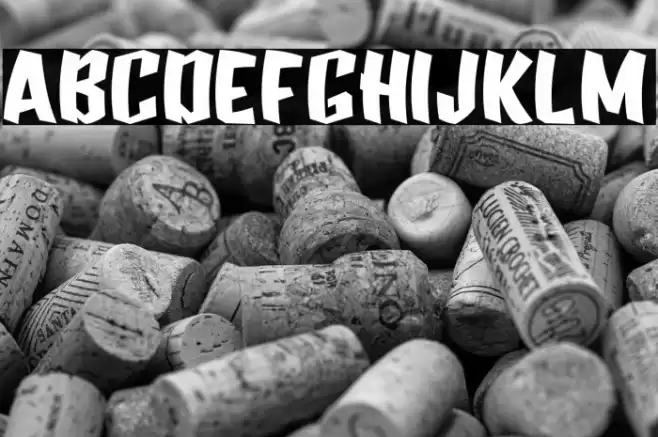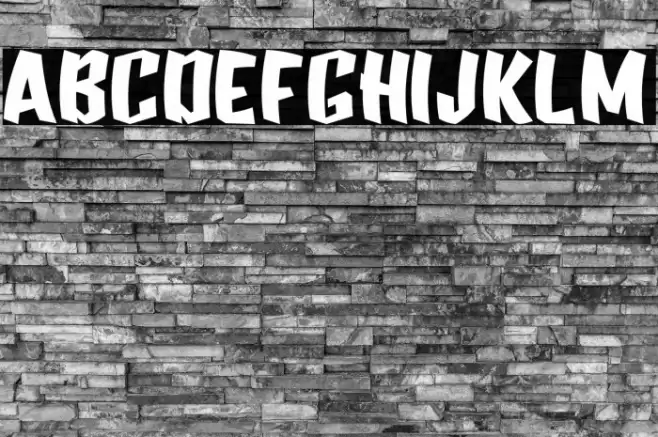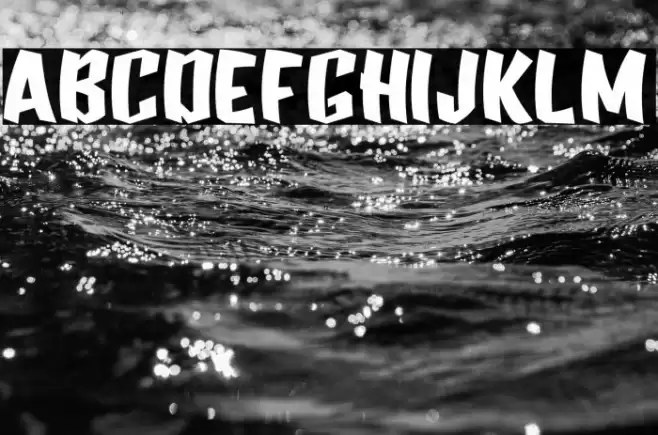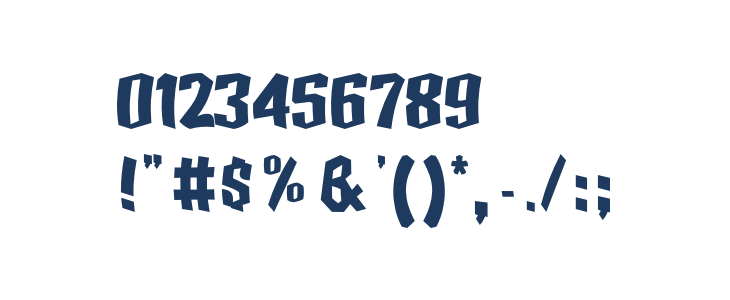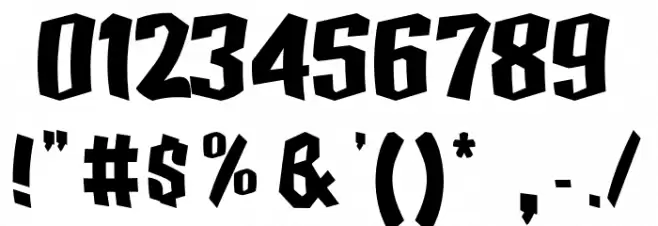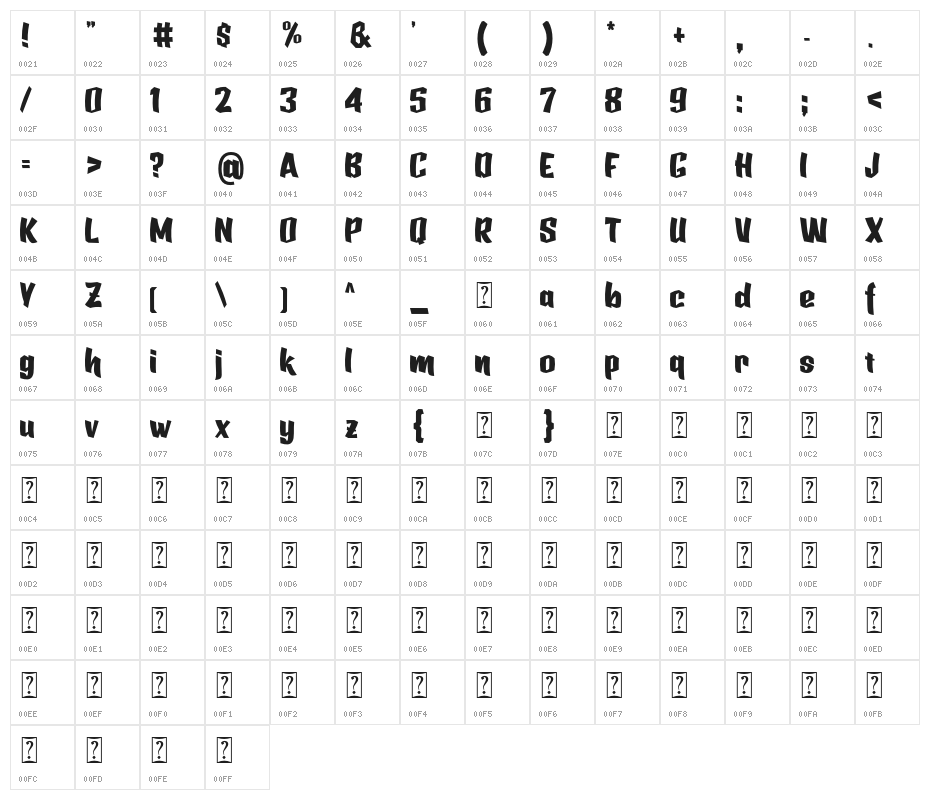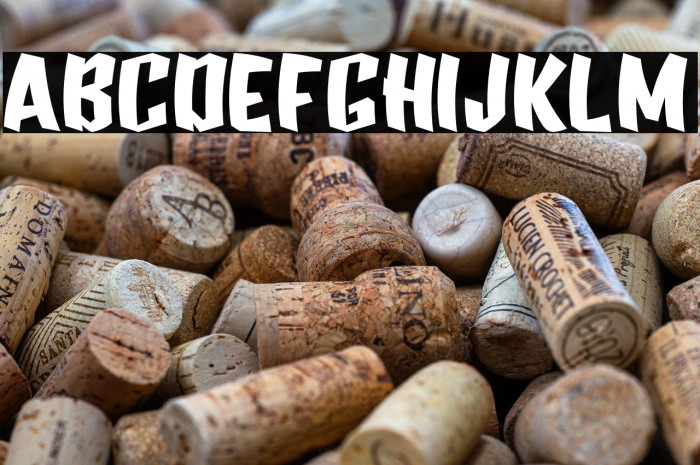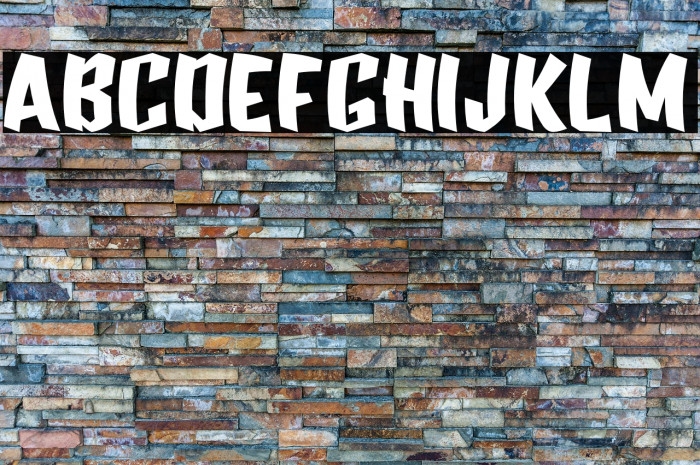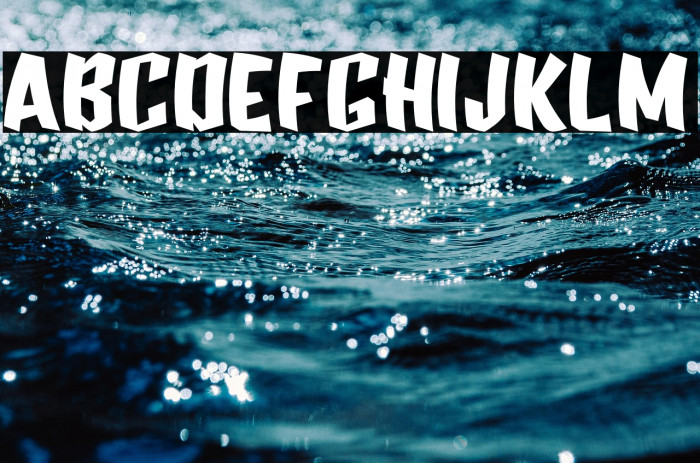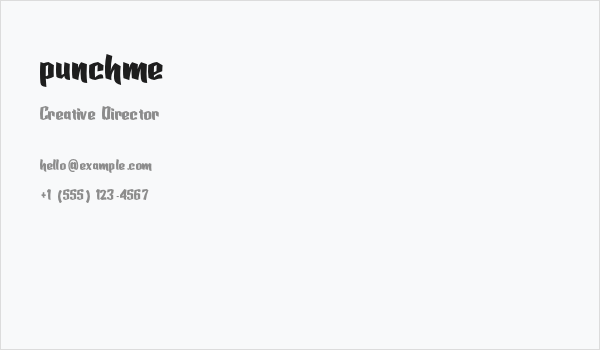
punchme Font
punchme Description
This font features bold, angular characters with a dynamic and energetic style. The letters have a slightly irregular, hand-drawn appearance, giving them a unique and edgy look. The uppercase and lowercase letters maintain a consistent boldness, while the numerals and special characters complement the overall design. The font's distinctive style makes it stand out, with sharp edges and a slightly condensed form that adds to its striking appearance.
A bold, angular font with an energetic, hand-drawn style from Uncategorized fonts.
- Font: punchme
- Proposed Projects: Ideal for posters, logos, and branding projects that require a bold and dynamic look.
- Overall Style: Modern, Edgy